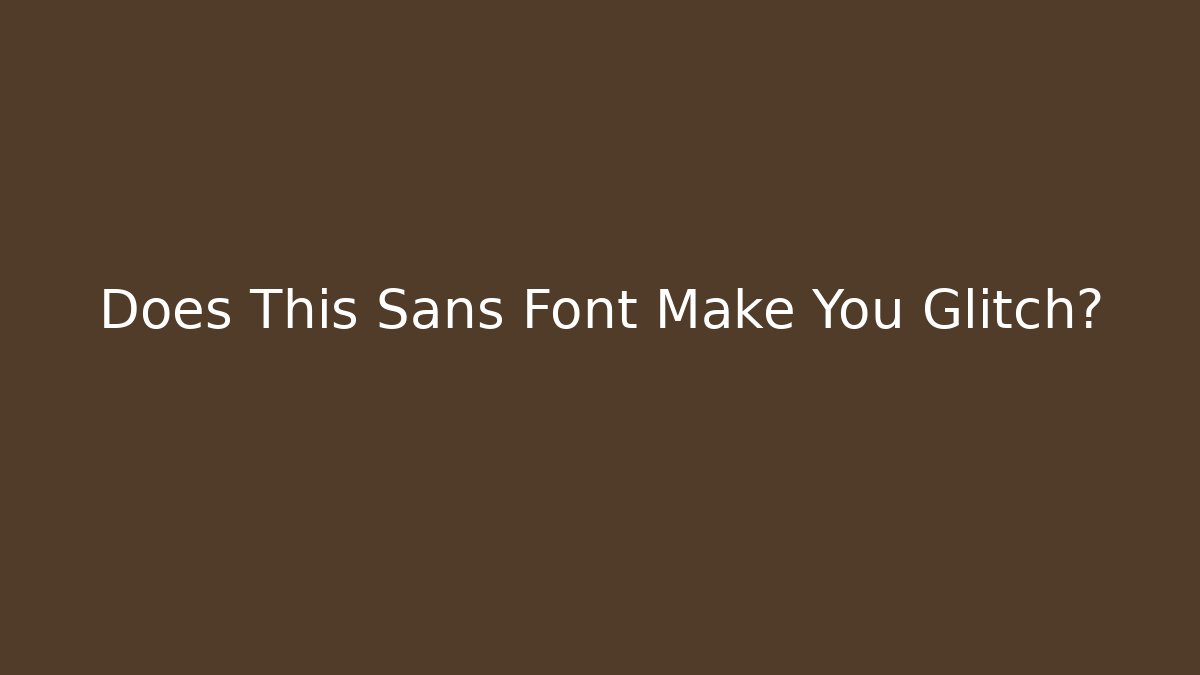
Does This Sans Font Make You Glitch?
Strange loading screens sparked fresh curiosity. Players compare thin, clean sans faces looking for that jittery reaction. Does This Sans Font Make You Glitch? sits at the center of this trend.
Does This Sans Font Make You Glitch? is a techstyle typeface with sharp edges and tight spacing. It tricks depth perception, creating a subtle visual strobe for some viewers. Studies indicate these high contrast forms can feel unstable on screen.
How The Effect Happens
Rapid flicker patterns occur when strokes clash with background textures. Your eyes track movement, so geometric cuts amplify the sense of vibration. Research shows screen brightness and scaling influence this reaction.
Why It Matters Now
Streamers share striking moments that loop online. Short clips highlight the jumpy feel, pushing the meme forward. This turns a simple font choice into a shared visual test.
Pick cleaner options if motion distracts you.
Why does this font bother some players?
High contrast letterforms and tight spacing create a flicker-like effect. What one person ignores, another sees as heavy glitching.
Can changing settings reduce the effect?
Lower brightness and medium scaling often calm the jumps. Switching to softer sans styles usually removes the issue entirely.